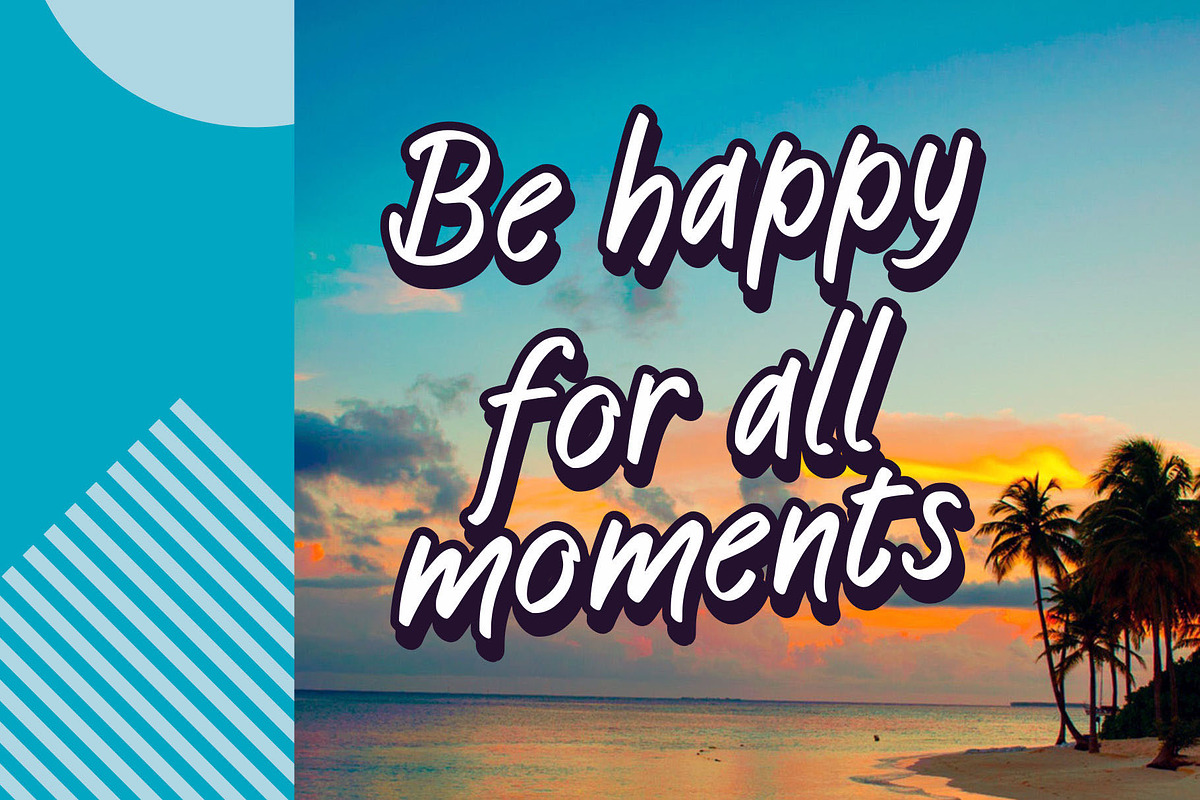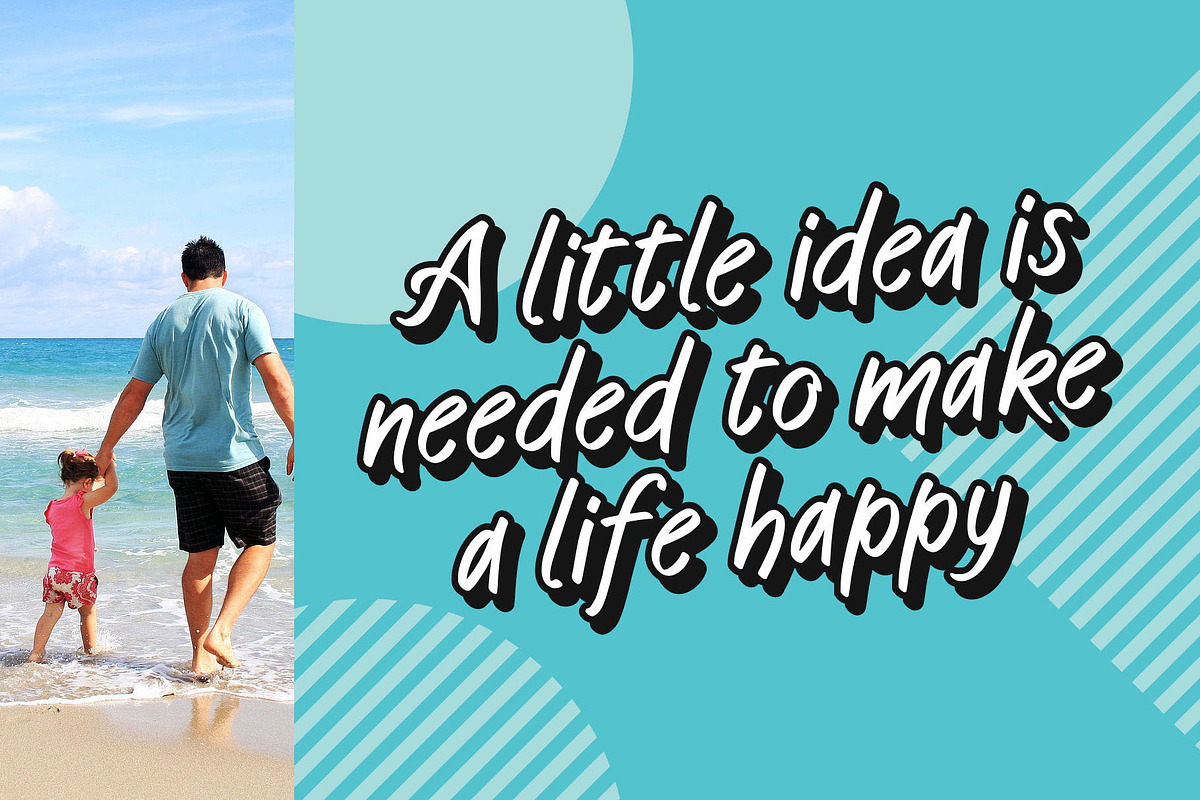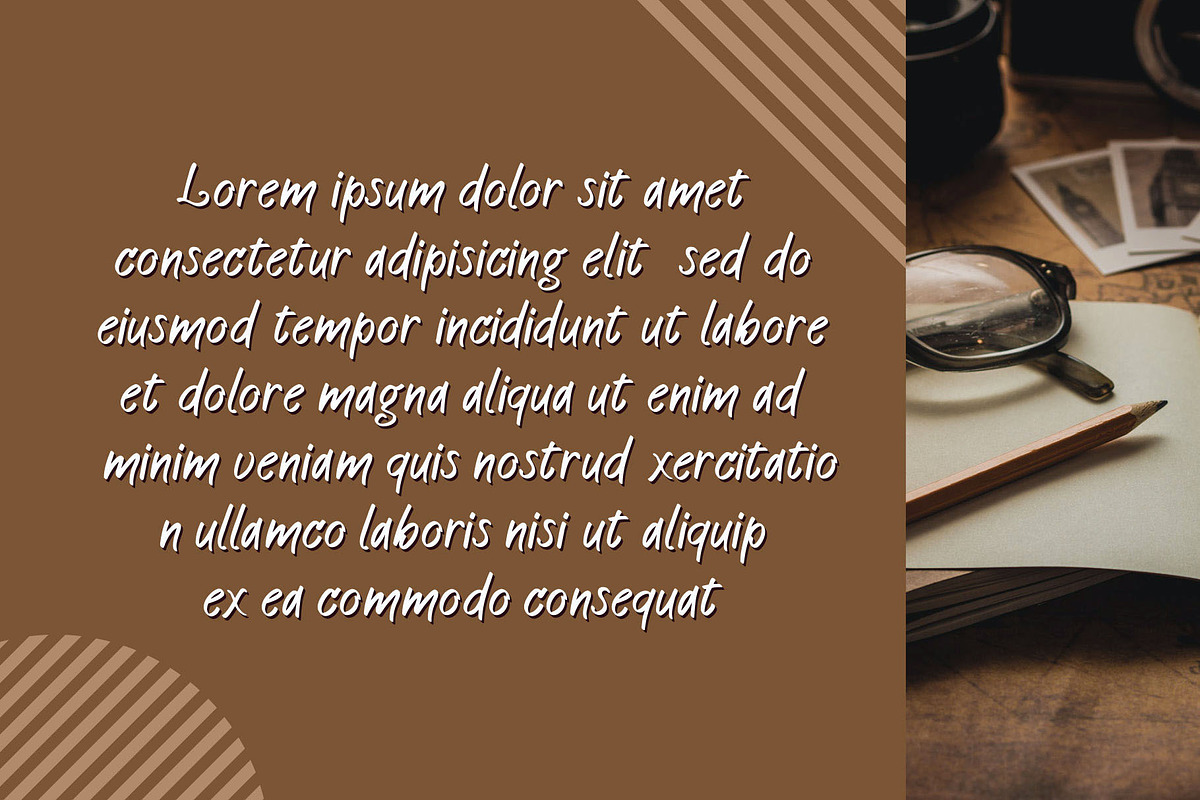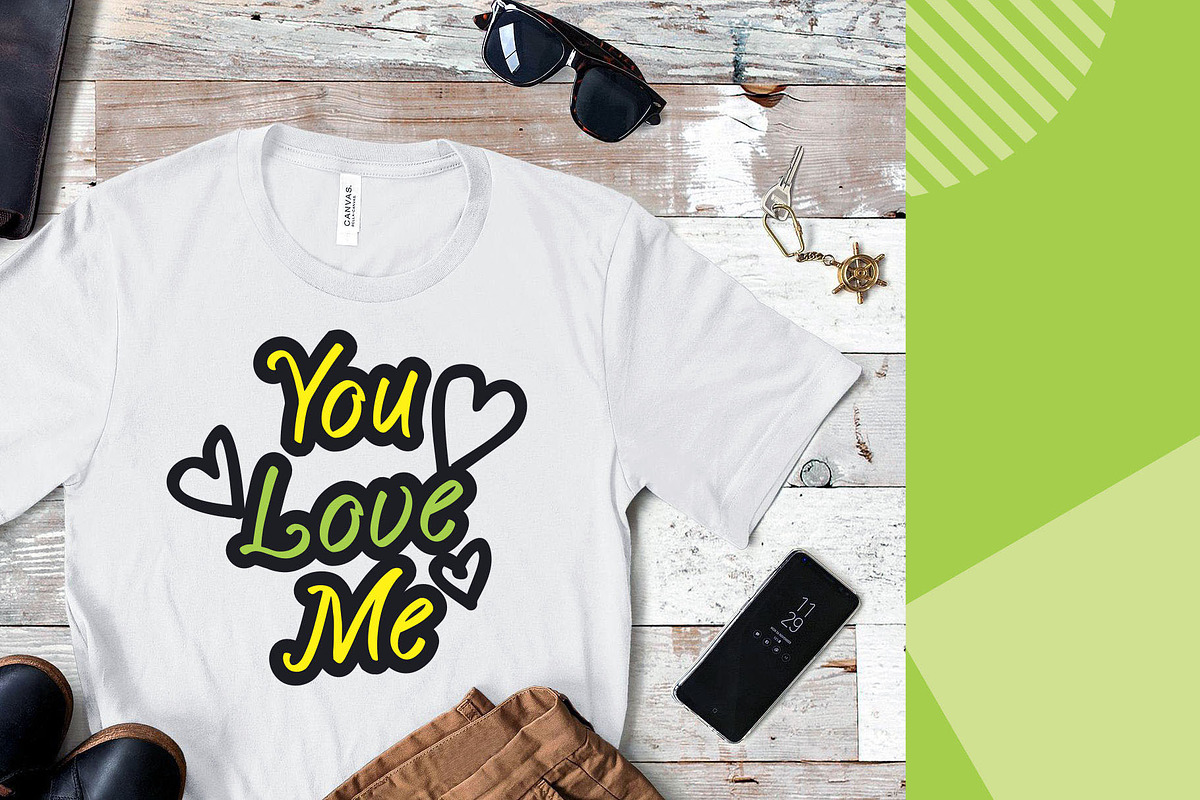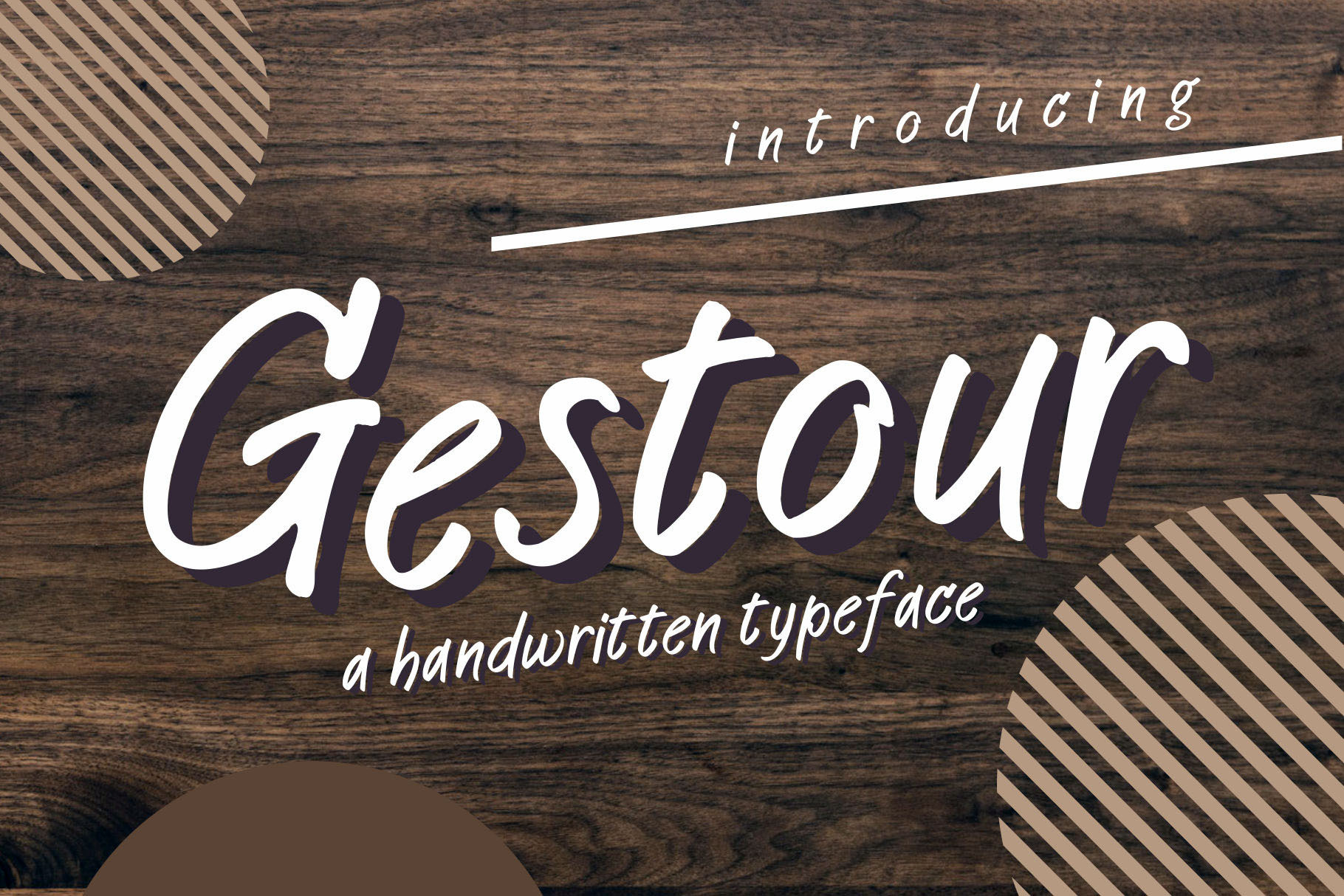
Gestour Font
Introducing Gestour Font, a handwritten typeface. Gestour font have characters fun, simple and happy. Suitable to fil your design that have a handwritten style. Gestour font contain a basic glyphs characters, uppercase, lowercase and numeral. Gestour font have a 3 formats in OTF, TTF and WOFF. If you have any question, please send me in emnazar2009@gmail.com